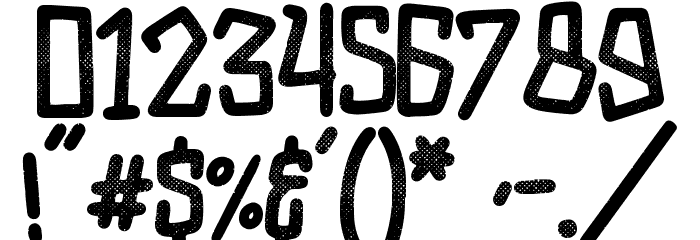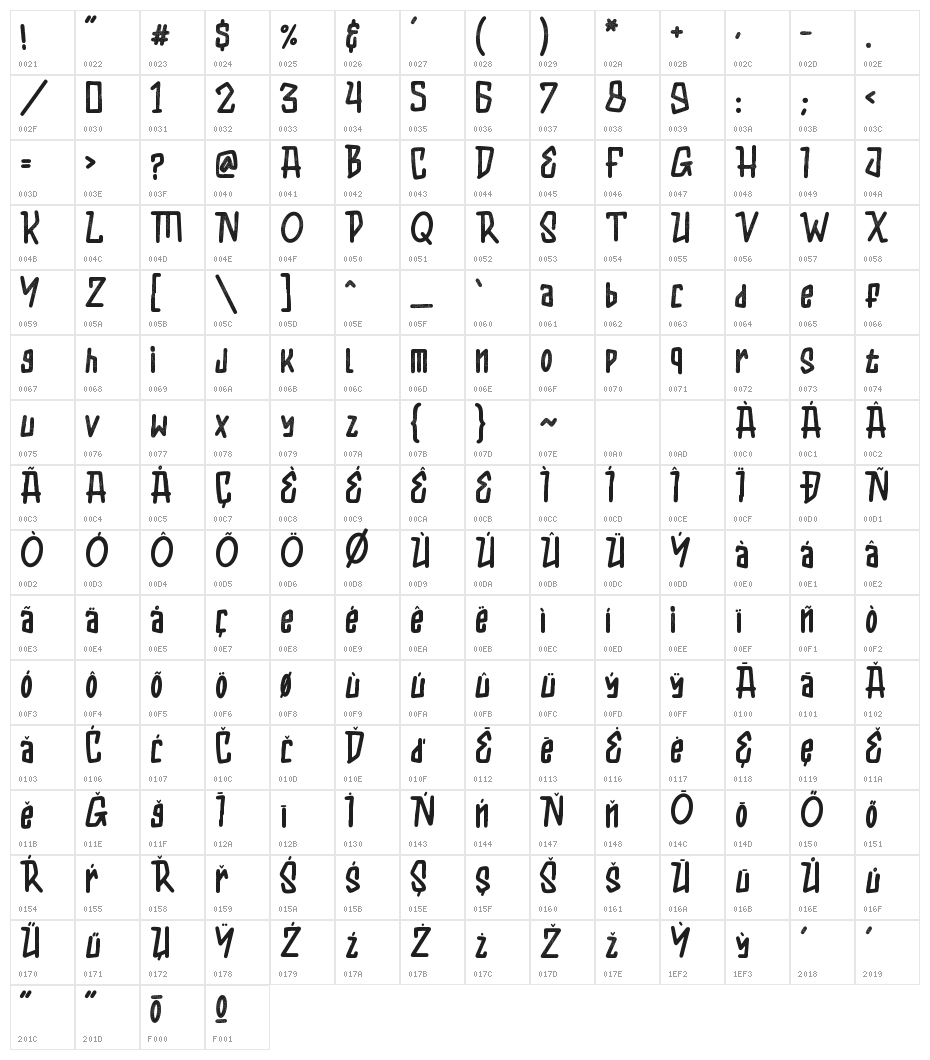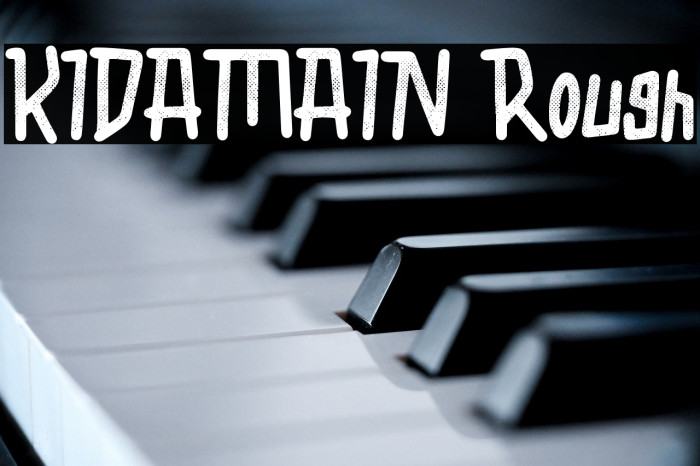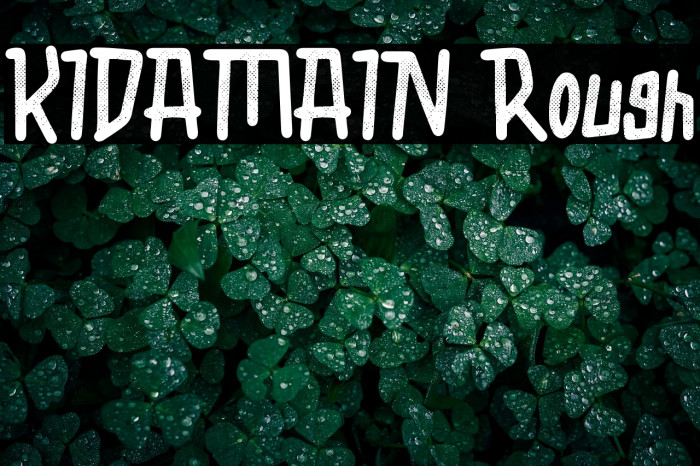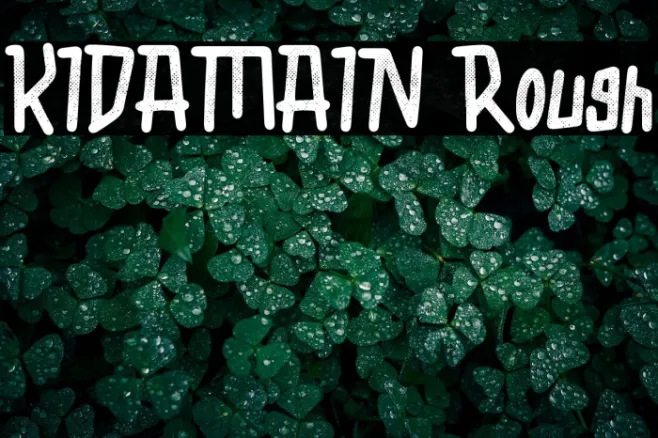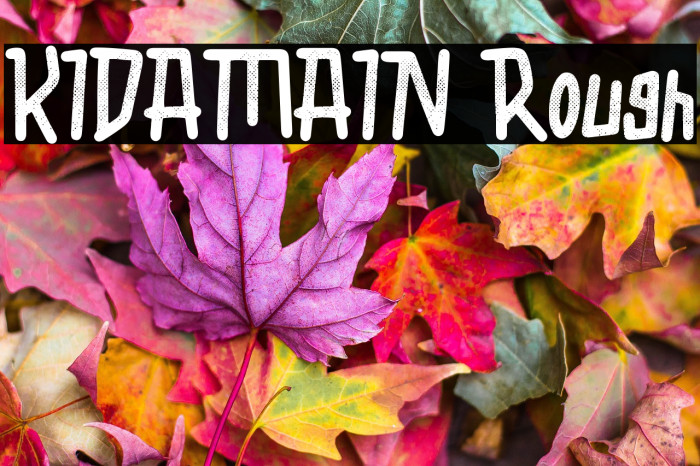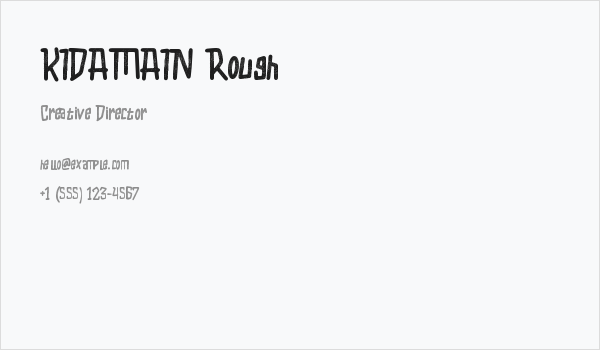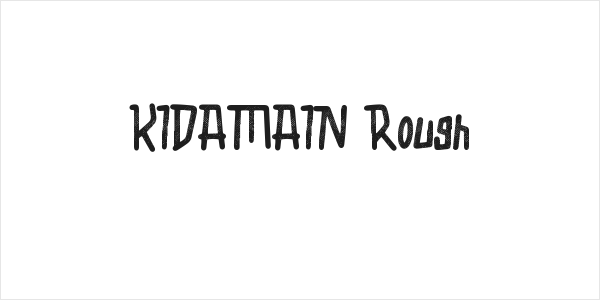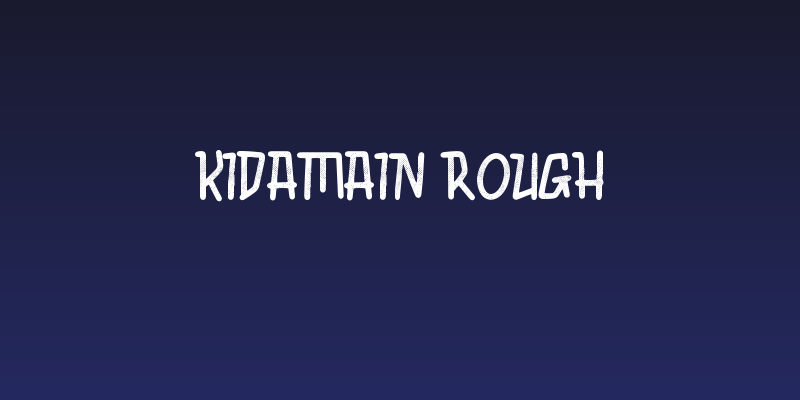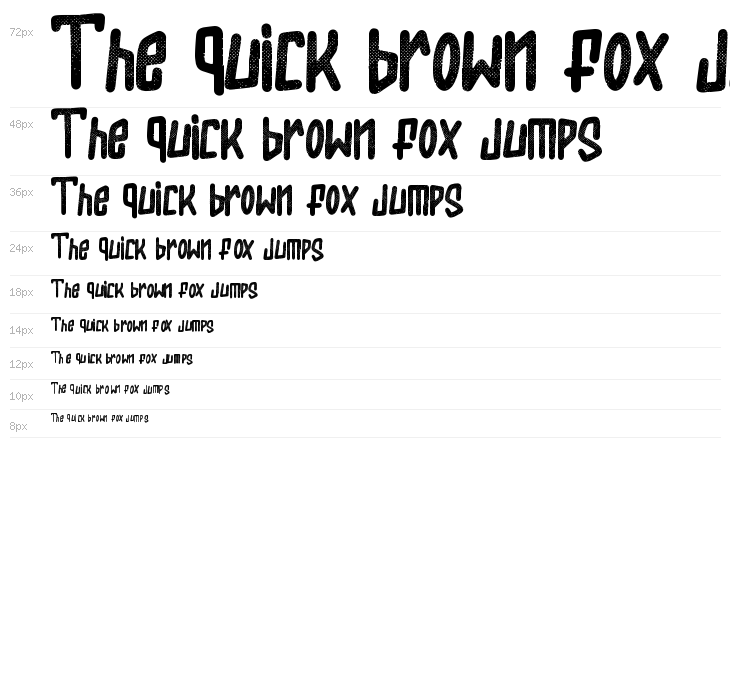
KIDAMAIN Rough Font
KIDAMAIN Rough Description
This font features a bold and playful design with a rough, textured appearance. The characters are slightly irregular, giving it a hand-drawn feel. The uppercase and lowercase letters maintain a consistent style, with rounded edges and a slightly condensed form. Numbers and special characters are included, matching the overall aesthetic. The texture adds a unique, vintage touch, making it stand out in any design project.
| Proposed Projects | Ideal for posters, logos, and branding projects that require a bold and unique look. |